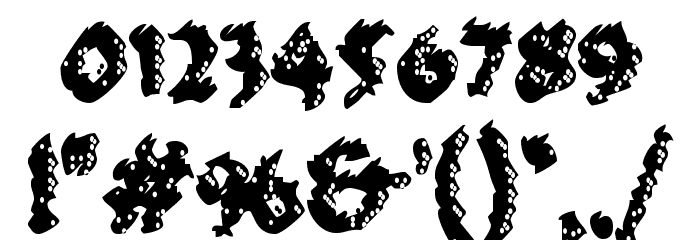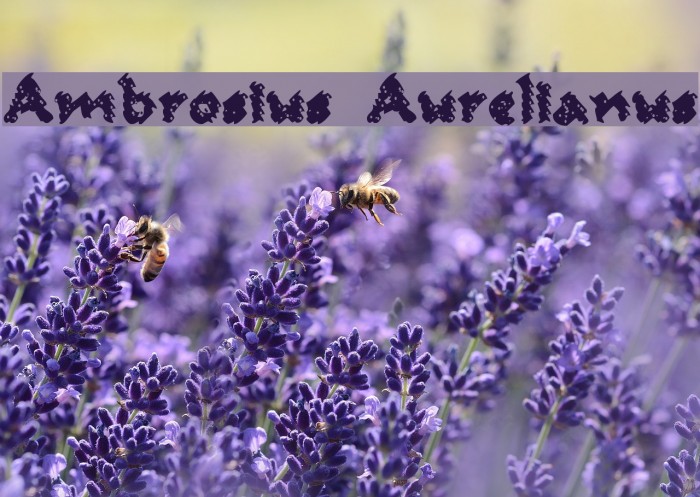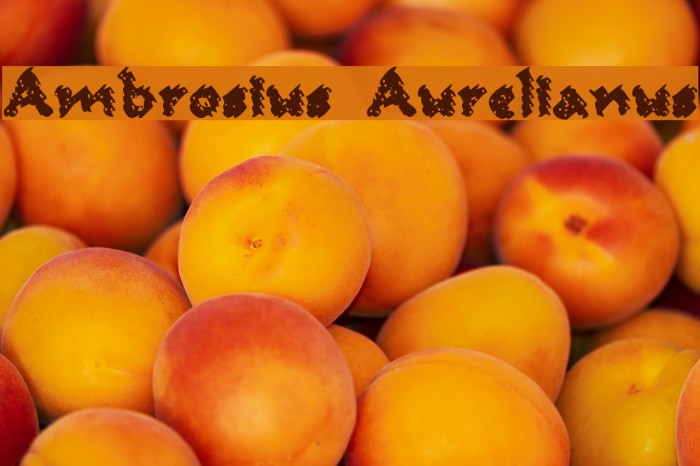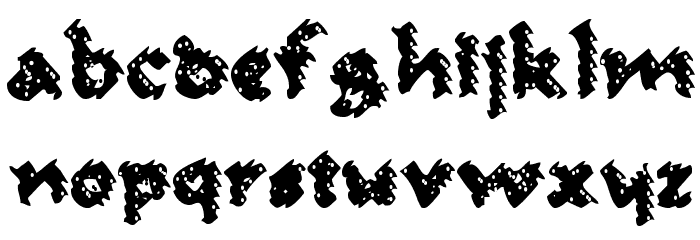
Ambrosius Aurelianus Font
This font features a highly decorative and unique style, characterized by its bold and jagged edges, reminiscent of a rugged, hand-carved look. The letters are filled with irregular, sharp cutouts that give it a dynamic and edgy appearance. The uppercase and lowercase letters maintain a consistent design, with a playful yet aggressive aesthetic. Numbers and special characters follow the same intricate pattern, ensuring a cohesive look across all glyphs. This font's distinctive style makes it stand out, ideal for projects that require a bold statement.
A bold, jagged, and decorative font with a rugged, hand-carved appearance.
• Proposed Projects: Ideal for Halloween-themed designs, edgy posters, album covers, or any project needing a bold, statement-making font.
• Category: Decorative/Display
• Bold: Yes
• Italic: No
• Weight: Bold
• Width: Normal
• Character Spacing: Normal
• Contrast: High
• Overall Style: Decorative
• Use Case: Headlines, Logos, Posters